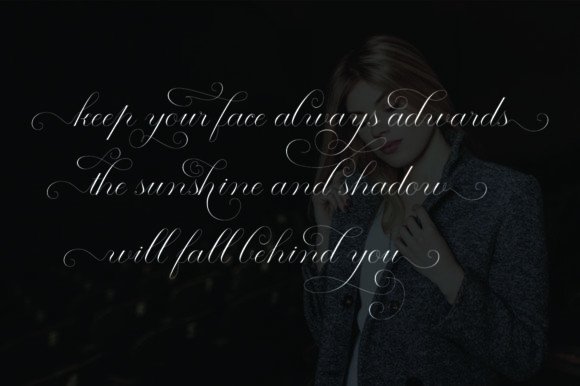
Introducing the Elegance of Manhattan Calligraphy Font
In the world of typography, calligraphy fonts have always been a favorite among designers and artists for their elegance, sophistication, and unique flair. Among these, the Manhattan Calligraphy Font stands out for its modern appeal and feminine touch. This article will delve into the details of the Manhattan Calligraphy Script, a new modern script font that has been making waves in the design community for its trendy and versatile style.
What is Manhattan Calligraphy Font?
Manhattan Calligraphy Script is a contemporary script font characterized by its irregular baseline, which gives it a distinctive and artistic look. This font is designed to bring a touch of elegance and sophistication to various design projects, making it a perfect choice for those looking to add a bit of flair to their work.
A sample of Manhattan Calligraphy Font in use.
Key Features of Manhattan Calligraphy Font
- Trendy and Feminine Style: Manhattan Calligraphy Font boasts a trendy and feminine style that makes it perfect for designs that require a touch of elegance and grace.
- Irregular Baseline: The irregular baseline of this font adds a unique and artistic touch to any design, setting it apart from more traditional calligraphy fonts.
- Versatility: This font is incredibly versatile and can be used for a wide range of design projects, including wedding invitations, thank you cards, quotes, greeting cards, logos, and business cards.
Uses of Manhattan Calligraphy Font
The versatility of Manhattan Calligraphy Font makes it suitable for various applications. Here are some of the most popular uses:
- Wedding Invitations: The elegant and sophisticated look of Manhattan Calligraphy Font makes it a perfect choice for wedding invitations, adding a touch of romance and luxury to the occasion.
- Thank You Cards: Express gratitude in style with beautifully designed thank you cards featuring Manhattan Calligraphy Font.
- Quotes: Add a touch of elegance to inspirational and motivational quotes with this beautiful calligraphy font.
- Greeting Cards: Whether it’s a birthday, anniversary, or any other special occasion, Manhattan Calligraphy Font can help create stunning greeting cards.
- Logos: For businesses looking to establish a brand identity that exudes elegance and sophistication, Manhattan Calligraphy Font can be a great choice for logos.
- Business Cards: Stand out in the professional world with beautifully designed business cards featuring Manhattan Calligraphy Font.
What Designers Say About Manhattan Calligraphy Font
Tips for Using Manhattan Calligraphy Font Effectively
To get the most out of Manhattan Calligraphy Font, consider the following tips:
- Pair with Simple Fonts: For optimal readability, pair Manhattan Calligraphy Font with simple, sans-serif fonts for body text.
- Use for Headlines and Titles: Take advantage of the font’s elegance by using it for headlines, titles, and key messages.
- Experiment with Colors: Don’t be afraid to experiment with different colors to find the perfect match that enhances the beauty of the font.
Manhattan Calligraphy Script is a beautiful, modern script font that brings a touch of elegance and sophistication to any design project. Its trendy and feminine style, combined with its versatility, makes it a valuable addition to any designer’s toolkit. Whether you’re working on wedding invitations, business cards, or any other design project, Manhattan Calligraphy Font is sure to impress.